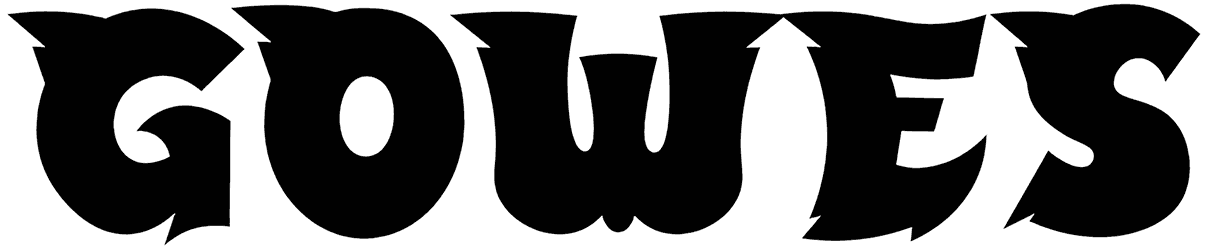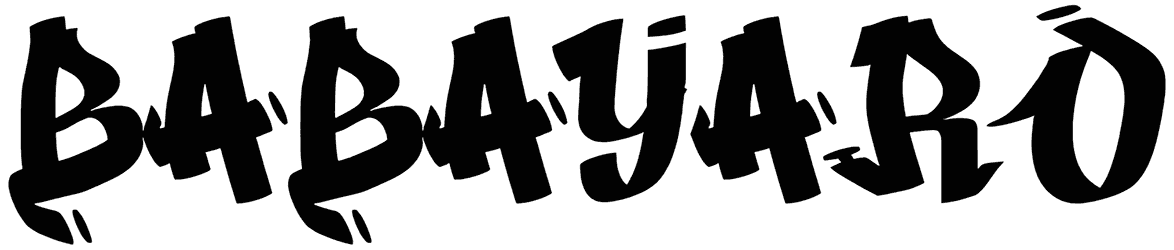
Squizers Marker Font
The Squizers Marker font is for those who like to play with vintage moods, and it is not a problem for them to have dripping textures in their projects that might be a bit unreadable.
We recommend you give a shot to this graffiti font to design art gallery cards, birthday invitation cards, or even Halloween flyers and experience the joy and vivacity while being at a Hungry Ghost Festival spooky event.